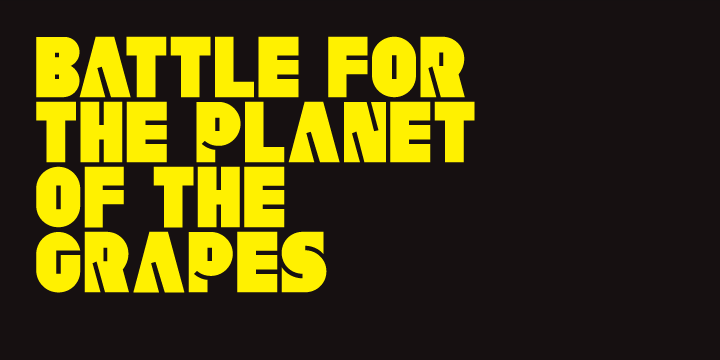
Aldo™
Design Credits
Designed by: Jonathan Hill
Designed when: 2009
Design owned by: The Northern Block
Aldo
Aldo is a 5 font family. A bold stylized type face re-worked from the original 1970s movie poster The Battle For The Planet Of The Apes.